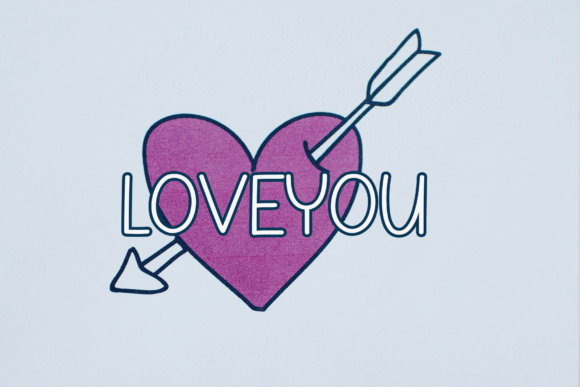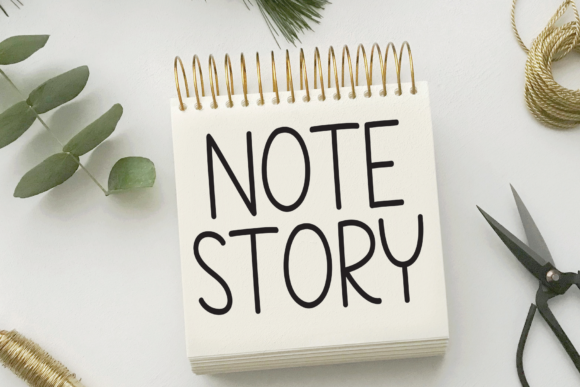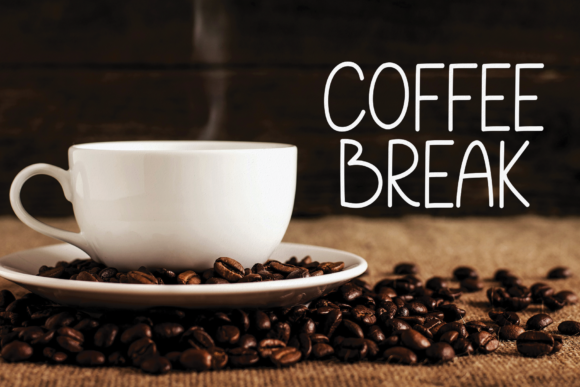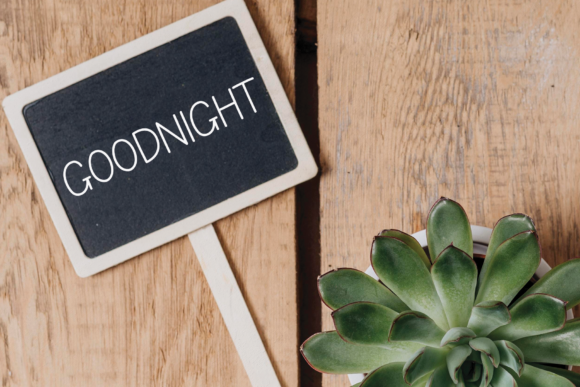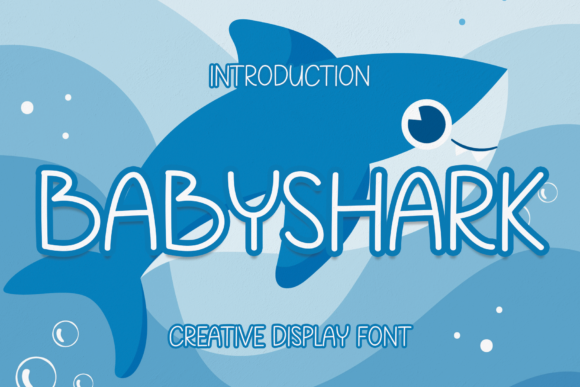
Babyshark Font: The Ultimate Clean Sans Serif for Modern Designs
In the world of typography, fonts play a crucial role in making or breaking a design. A well-chosen font can elevate your project, making it more visually appealing and engaging. If you’re a designer or crafter looking for a clean, modern, and versatile font, look no further than the Babyshark Font. In this article, we’ll dive into the features and benefits of this fantastic typeface.
What is Babyshark Font?
Babyshark Font is an utterly clean sans serif font that boasts slim and neat characters, giving it a modern and sleek style. This typeface is perfect for a wide range of projects and creations, from branding and advertising to crafting and DIY designs. Its clean lines and minimalist aesthetic make it an excellent choice for designers who want to add a touch of sophistication to their work.
Key Features of Babyshark Font
- Clean and Minimalist Design: Babyshark Font features a clean and minimalist design, making it perfect for modern designs that require a touch of elegance.
- Slim and Neat Characters: The font’s slim and neat characters give it a sleek and contemporary look that’s sure to impress.
- Sans Serif Style: The sans serif style of Babyshark Font makes it highly legible, even at small font sizes.
- Modern and Versatile: This typeface is incredibly versatile and can be used for a wide range of projects, from digital designs to print materials.
Benefits of Using Babyshark Font
So, why should you choose Babyshark Font for your next project? Here are just a few benefits of using this fantastic typeface:
- Easily Readable: The clean and simple design of Babyshark Font makes it easily readable, even for extended periods.
- Highly Versatile: This font can be used for a wide range of projects, from logos and branding to social media graphics and more.
- Modern and Trendy: The modern style of Babyshark Font ensures that your designs will look fresh and on-trend.
- Great for Digital and Print: Whether you’re designing for digital or print, Babyshark Font is a great choice, as it scales well and remains legible.
Who Can Benefit from Babyshark Font?
Babyshark Font is perfect for a variety of designers and crafters, including:
- Graphic Designers: If you’re a graphic designer looking for a clean and modern font for your next project, Babyshark Font is an excellent choice.
- Crafters and DIY Enthusiasts: If you’re a crafter or DIY enthusiast looking for a font to use in your projects, Babyshark Font is a great option.
- Branding and Marketing Professionals: If you’re looking for a font to use in your branding and marketing materials, Babyshark Font is a great choice.
- Experiment with Font Sizes: Try out different font sizes to see how Babyshark Font looks in different contexts.
- Pair it with Other Fonts: Babyshark Font pairs well with other clean and modern fonts, so feel free to experiment with different font combinations.
- Use it for Headings and Body Text: Babyshark Font is suitable for both headings and body text, making it a versatile addition to your font library.
In conclusion, Babyshark Font is an excellent choice for designers and crafters looking for a clean, modern, and versatile font. Its slim and neat characters, sans serif style, and modern aesthetic make it perfect for a wide range of projects and creations. Whether you’re a graphic designer, crafter, or branding professional, Babyshark Font is sure to become a valuable addition to your font library.